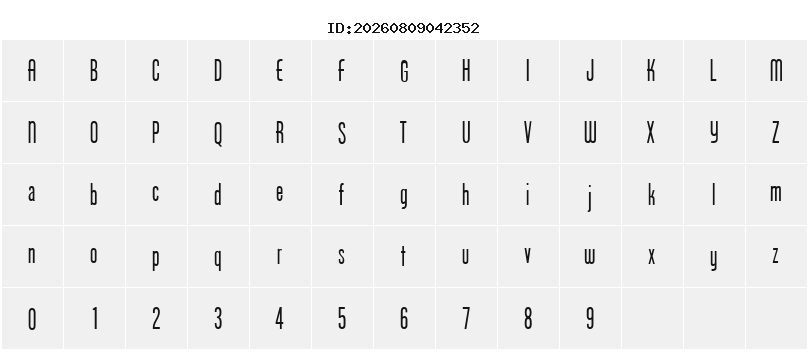
Phoenix American Preview
Phoenix American.ttf is a modern, elegant sans-serif font designed for ultimate readability and visual harmony. Perfect for branding, headlines, web design, and print materials.